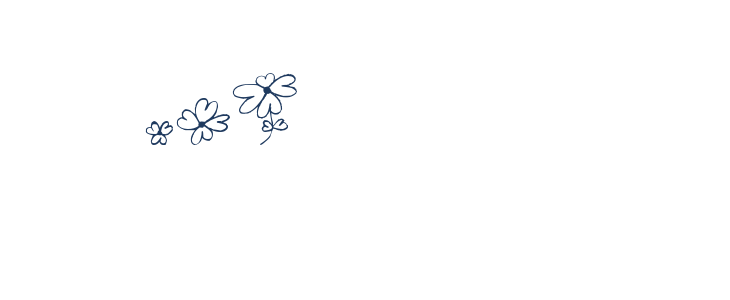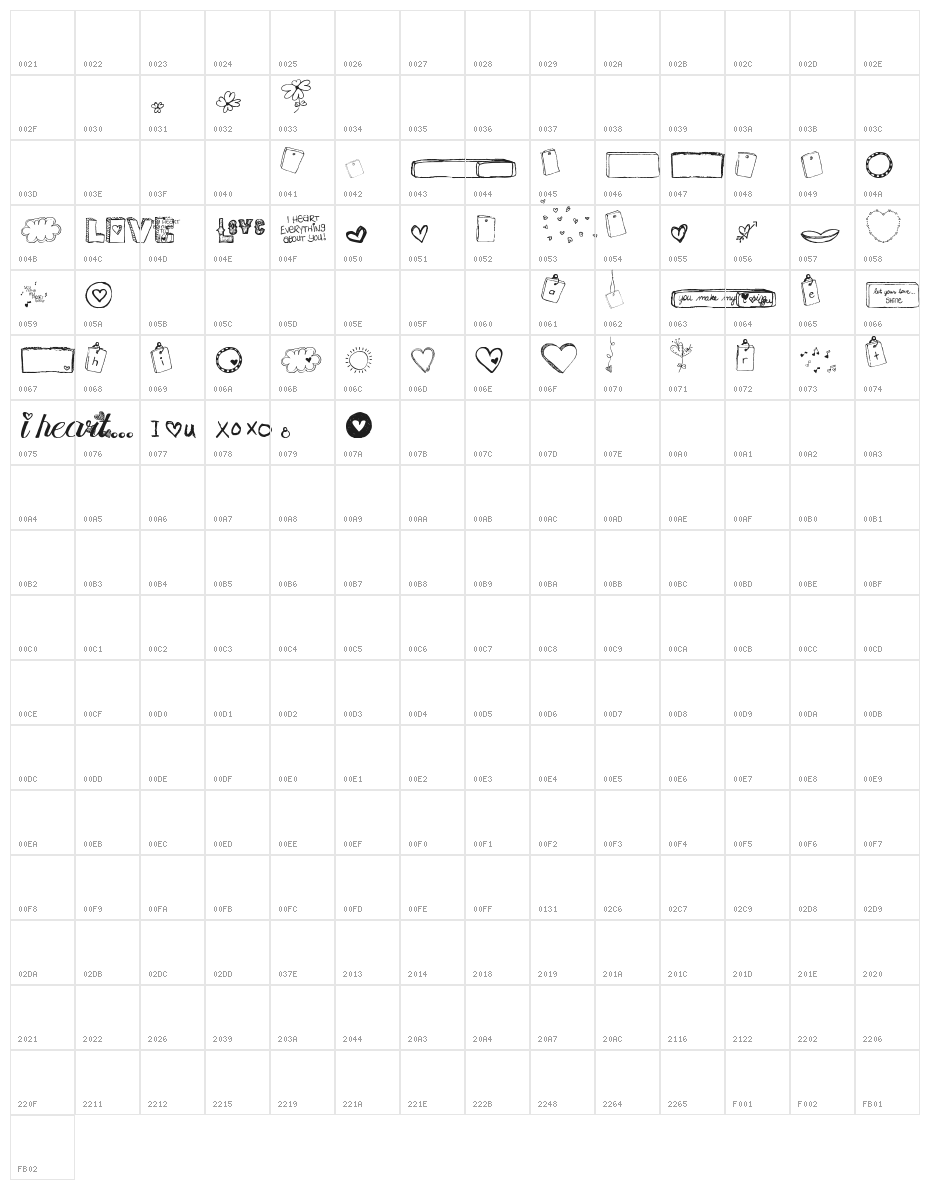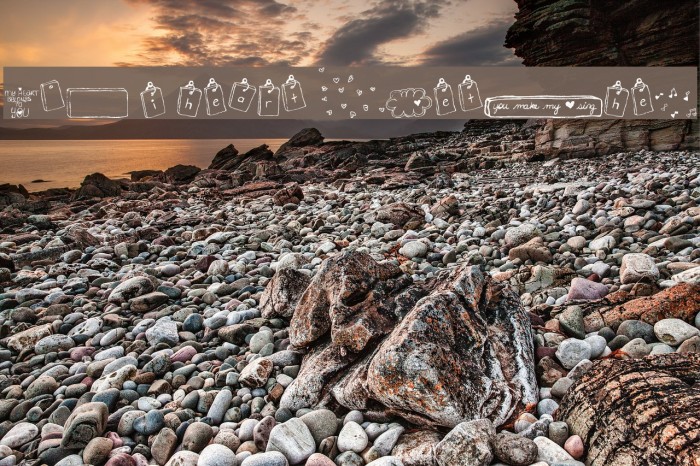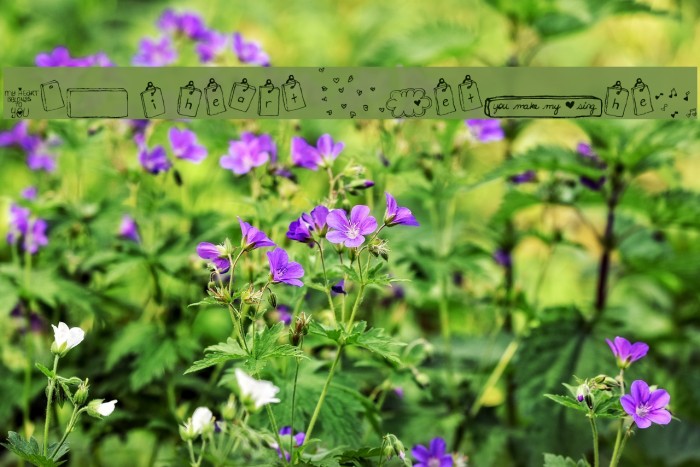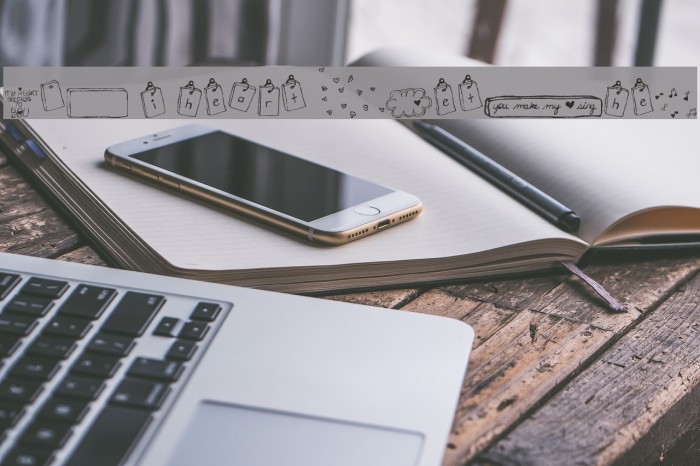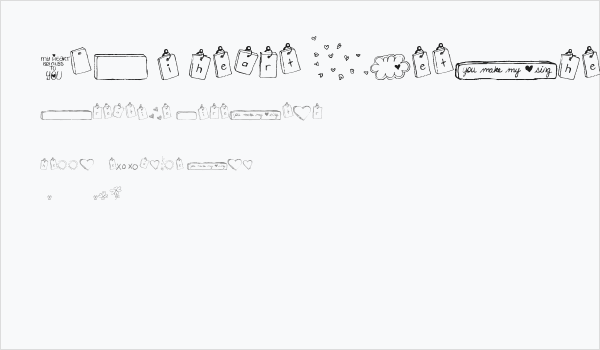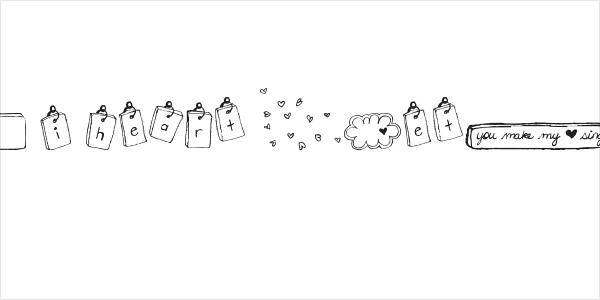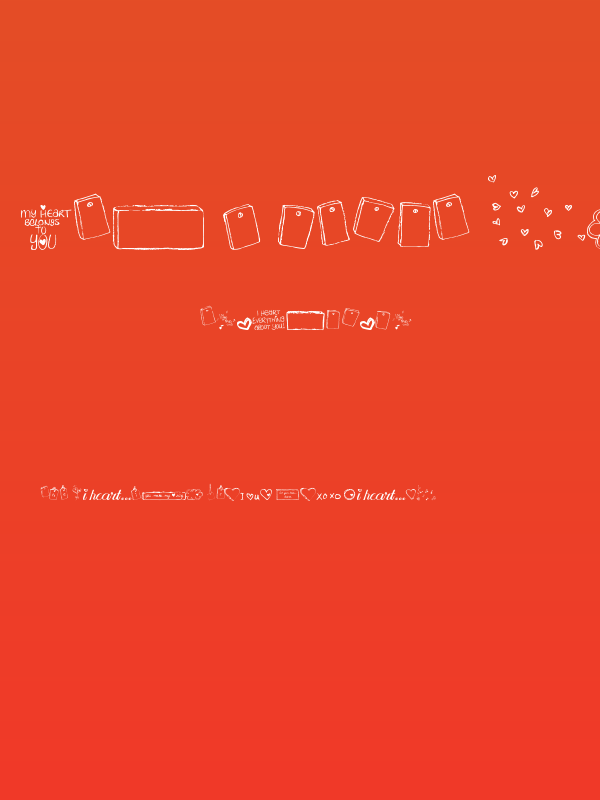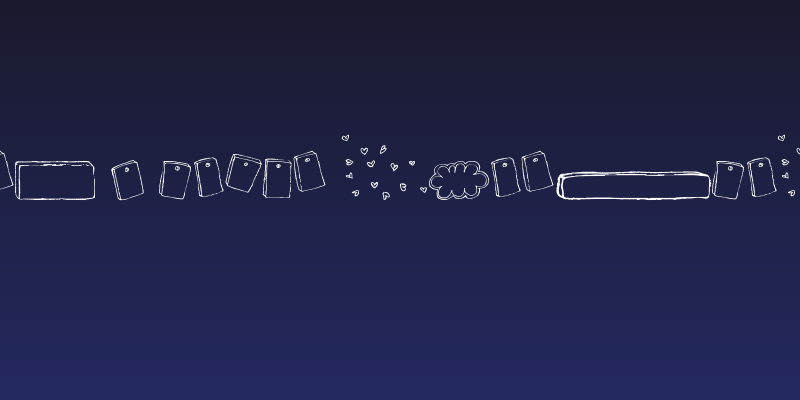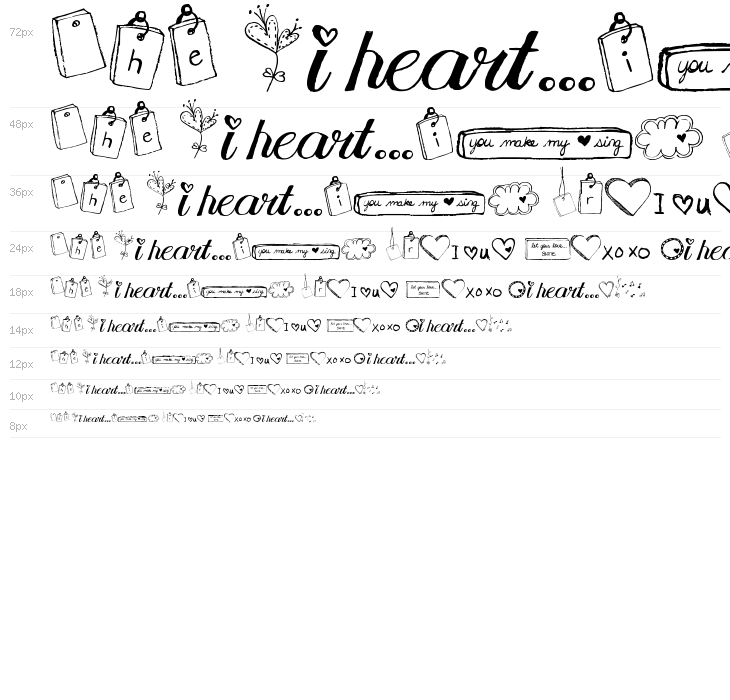
MTF i heart Sketches Font
MTF i heart Sketches Description
This font is a playful and whimsical collection of hand-drawn sketches and doodles, featuring a variety of love-themed elements such as hearts, flowers, and playful text. It includes decorative elements like tags, clouds, and suns, adding a charming and informal touch. The style is reminiscent of casual handwriting, with a mix of bold and delicate lines that create a lively and engaging appearance. The font is perfect for projects that require a personal and heartfelt touch, such as greeting cards, scrapbooking, or any creative design that aims to convey warmth and affection.
| Overall Style | Whimsical, Playful |
| Use Case | Decorative elements, Creative projects |
| Proposed Projects | Ideal for greeting cards, scrapbooking, love notes, and creative designs needing a personal touch. |